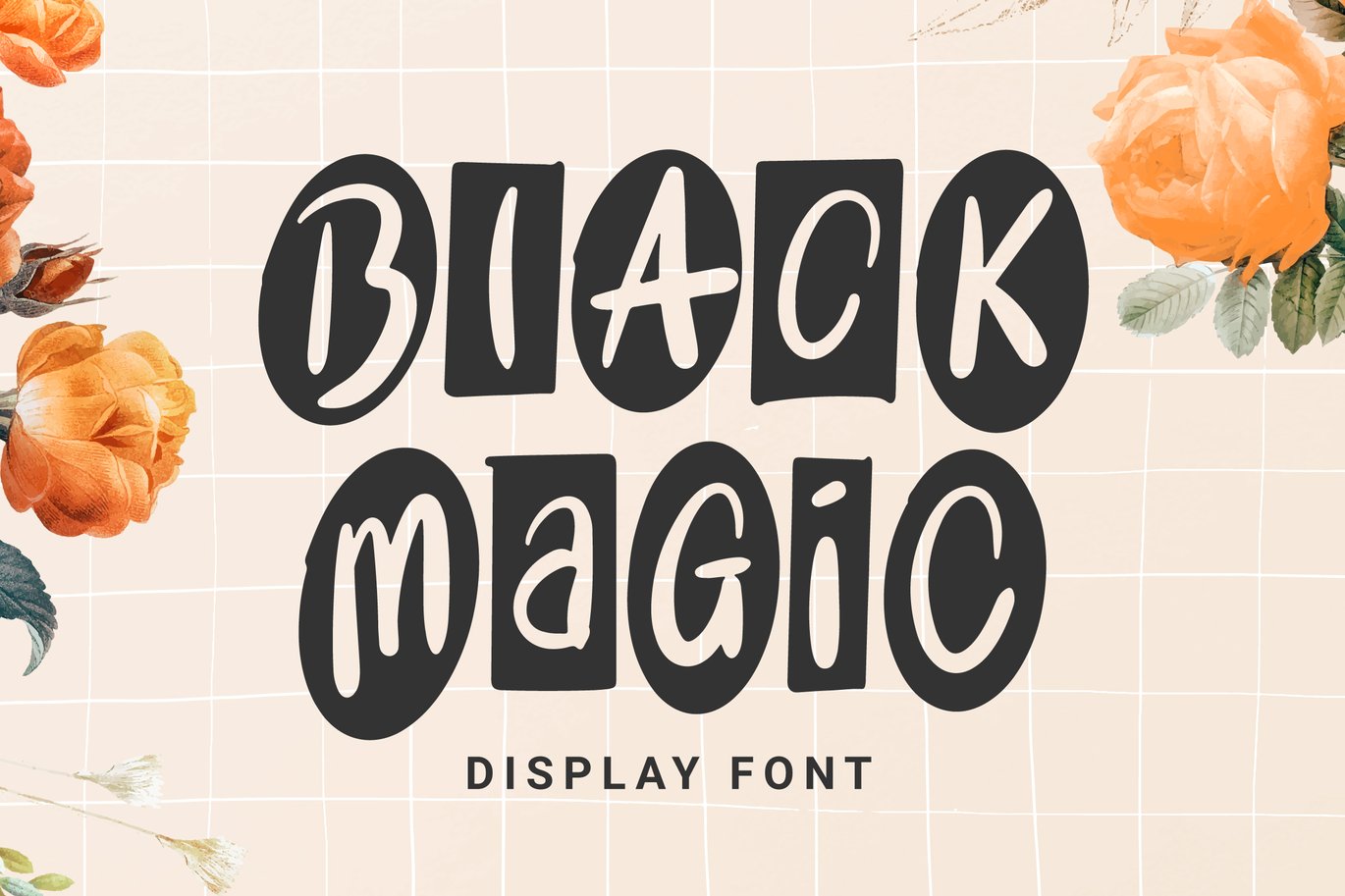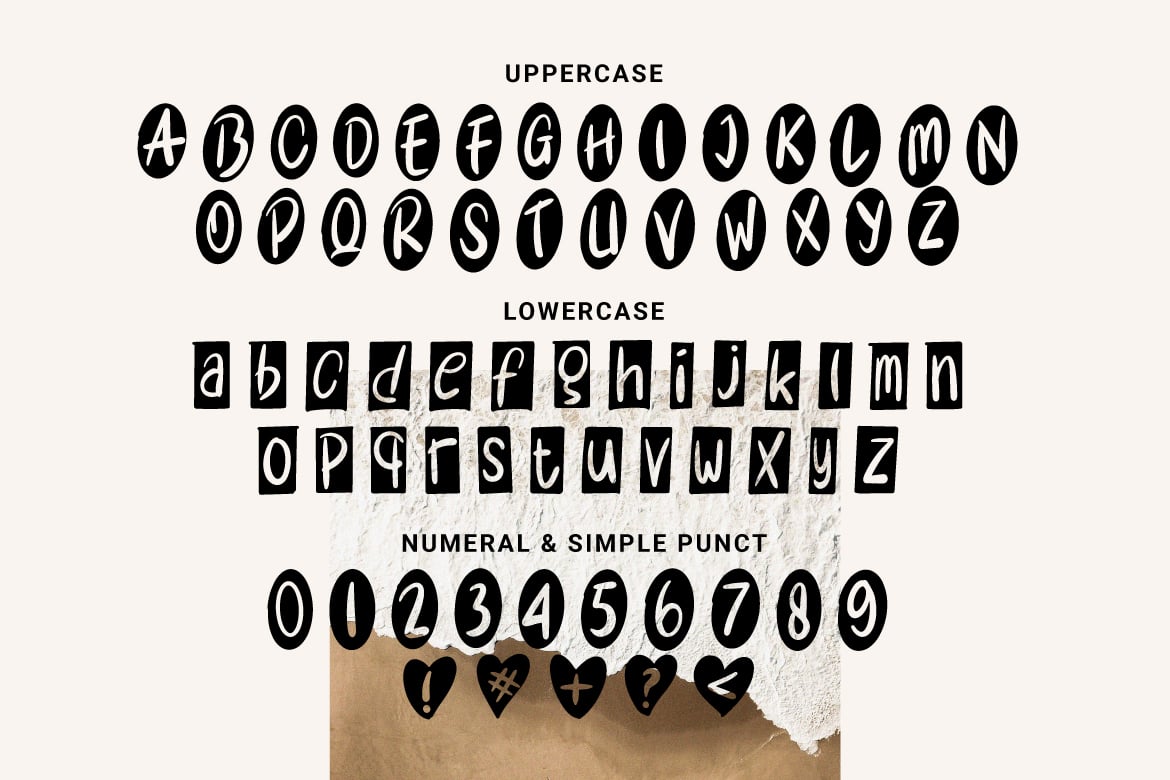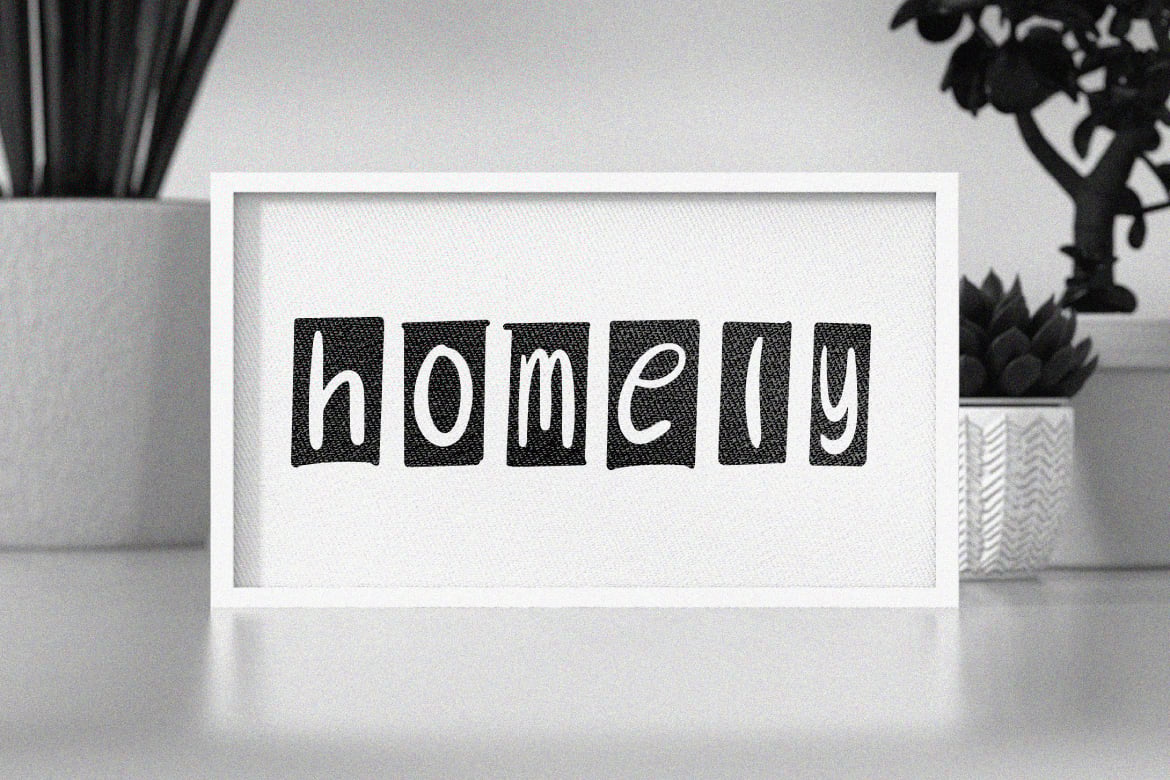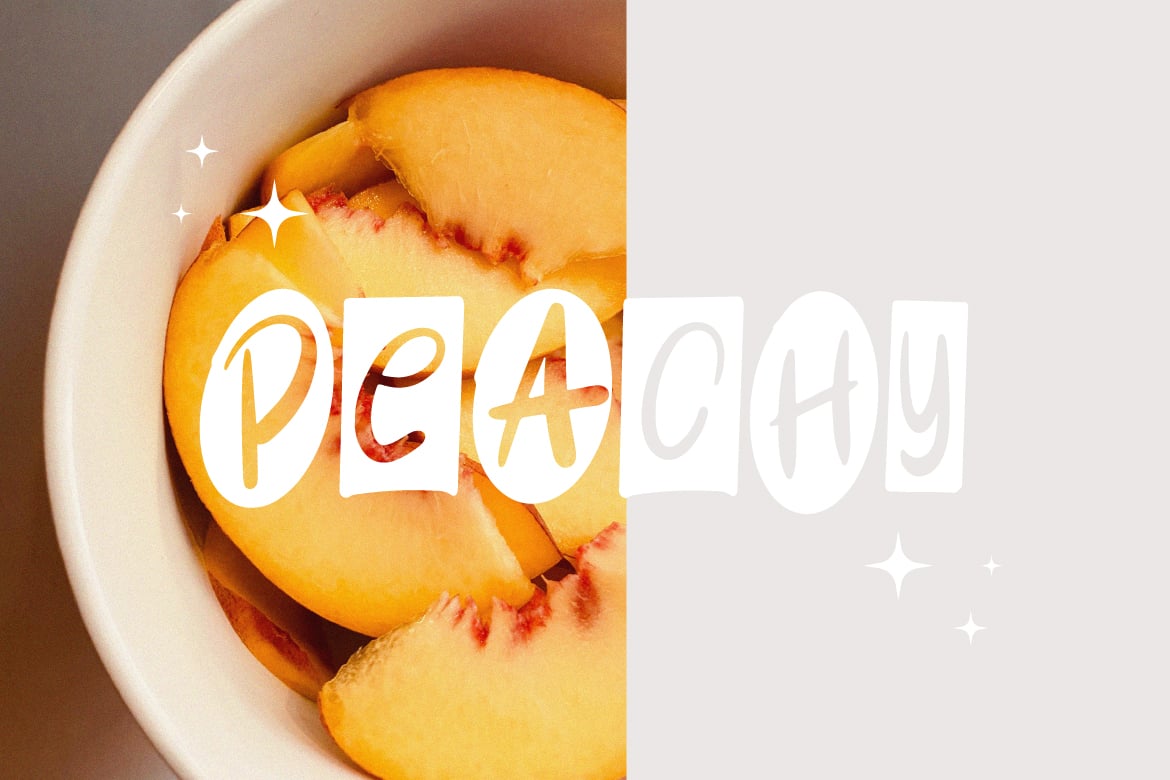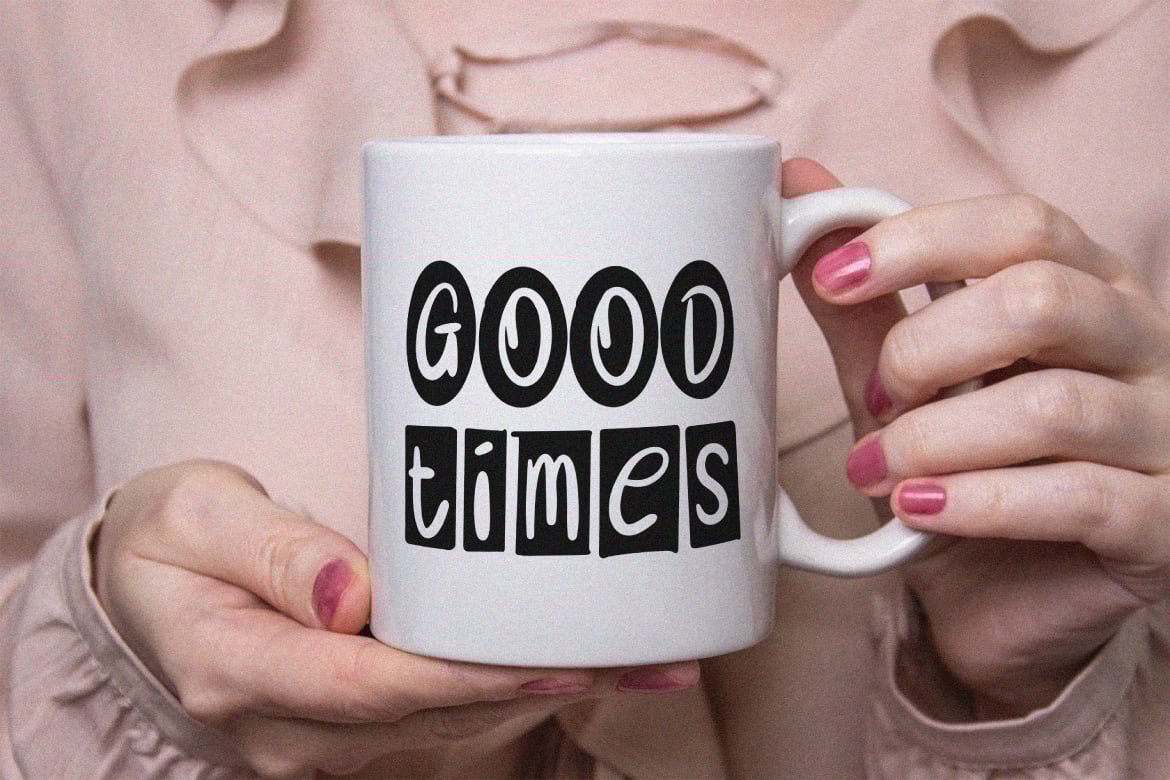
Black Magic – Block Font
Black Magic – Block Font.
Awesome and super fun block style display font. Can be combined in any way you like to create beautiful visuals in your designs. Suitable for merchandise design, posters, packaging etc.
- Feature: Uppercase, Lowercase, Numeral & Simple Punctuation.